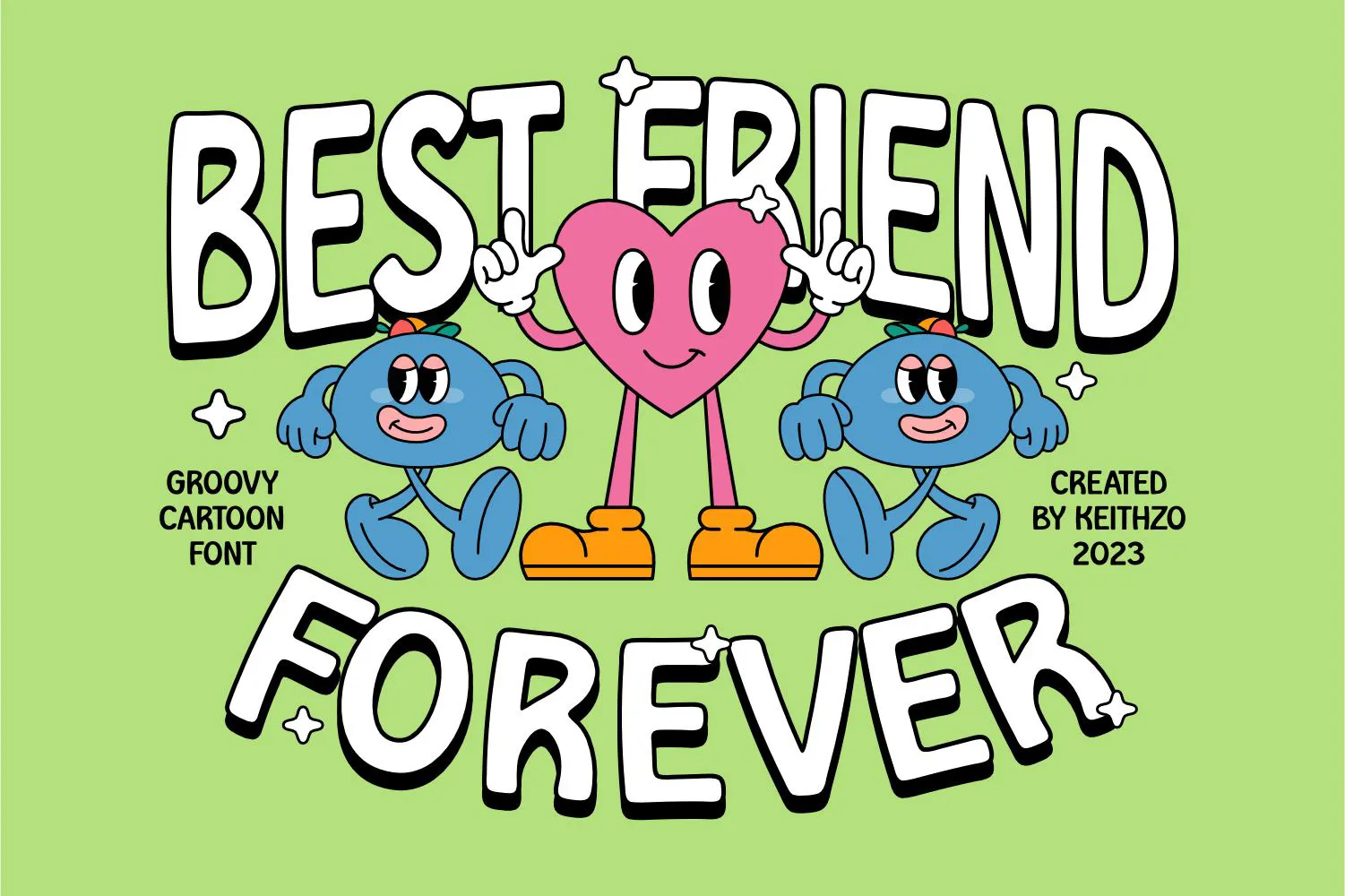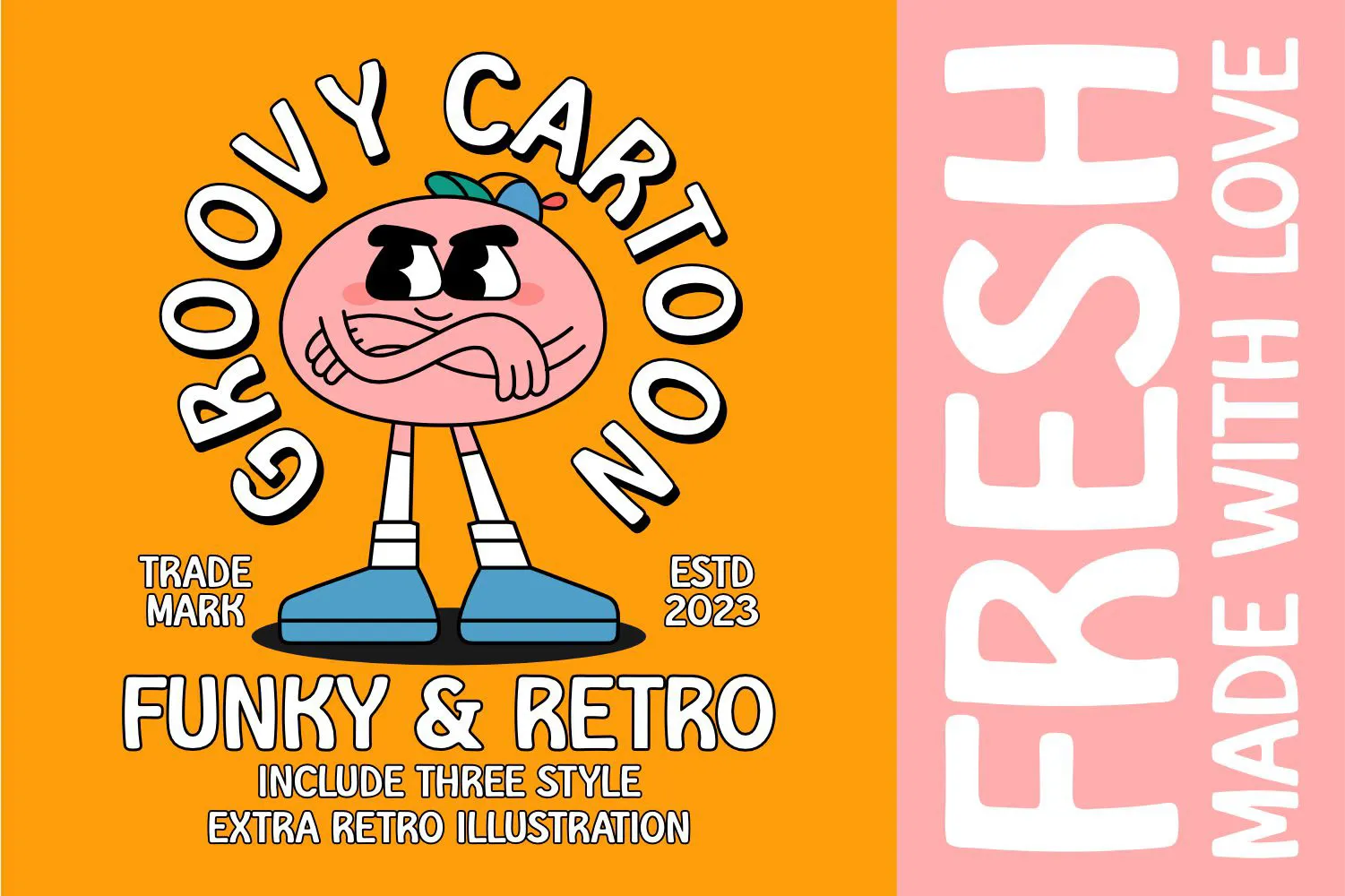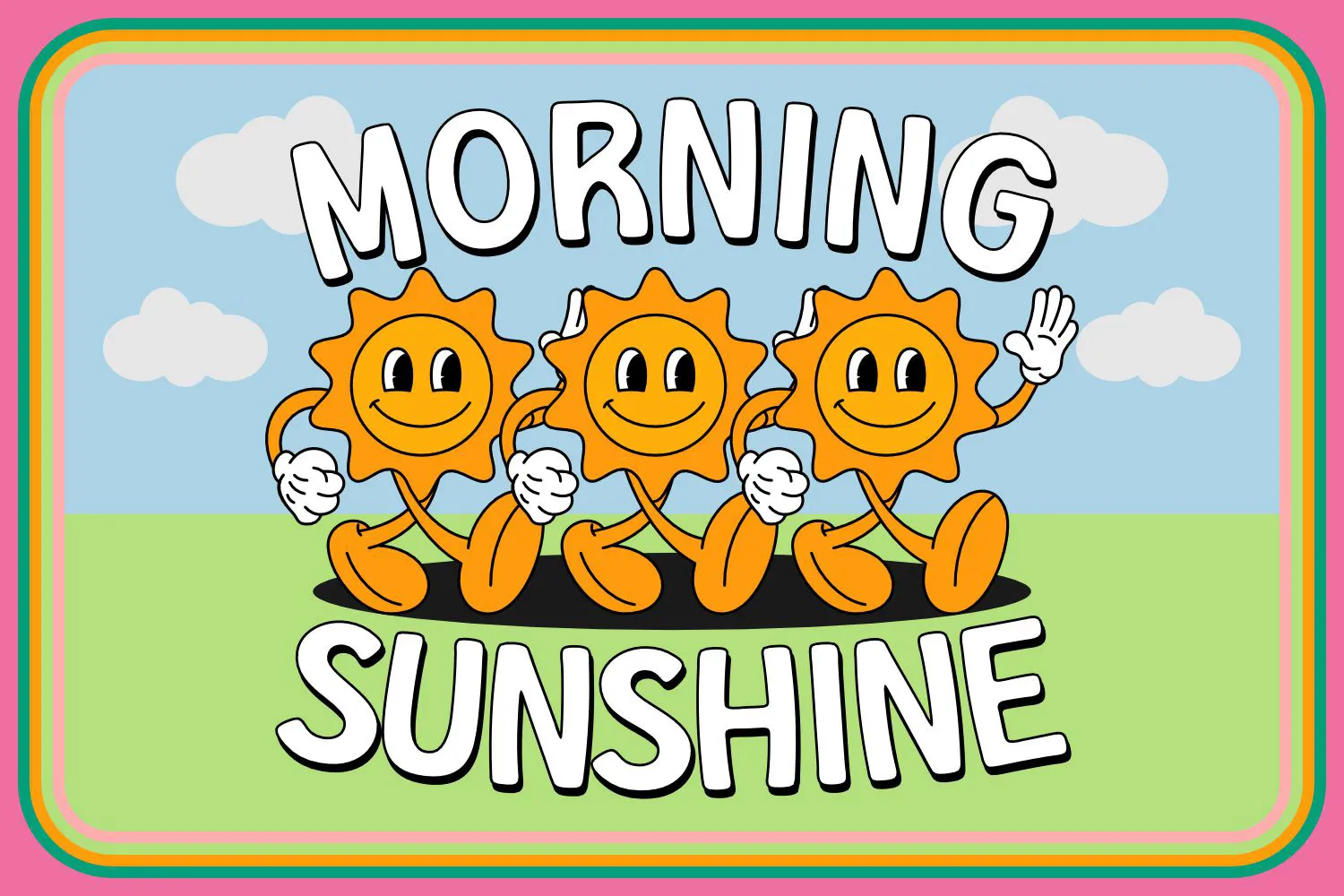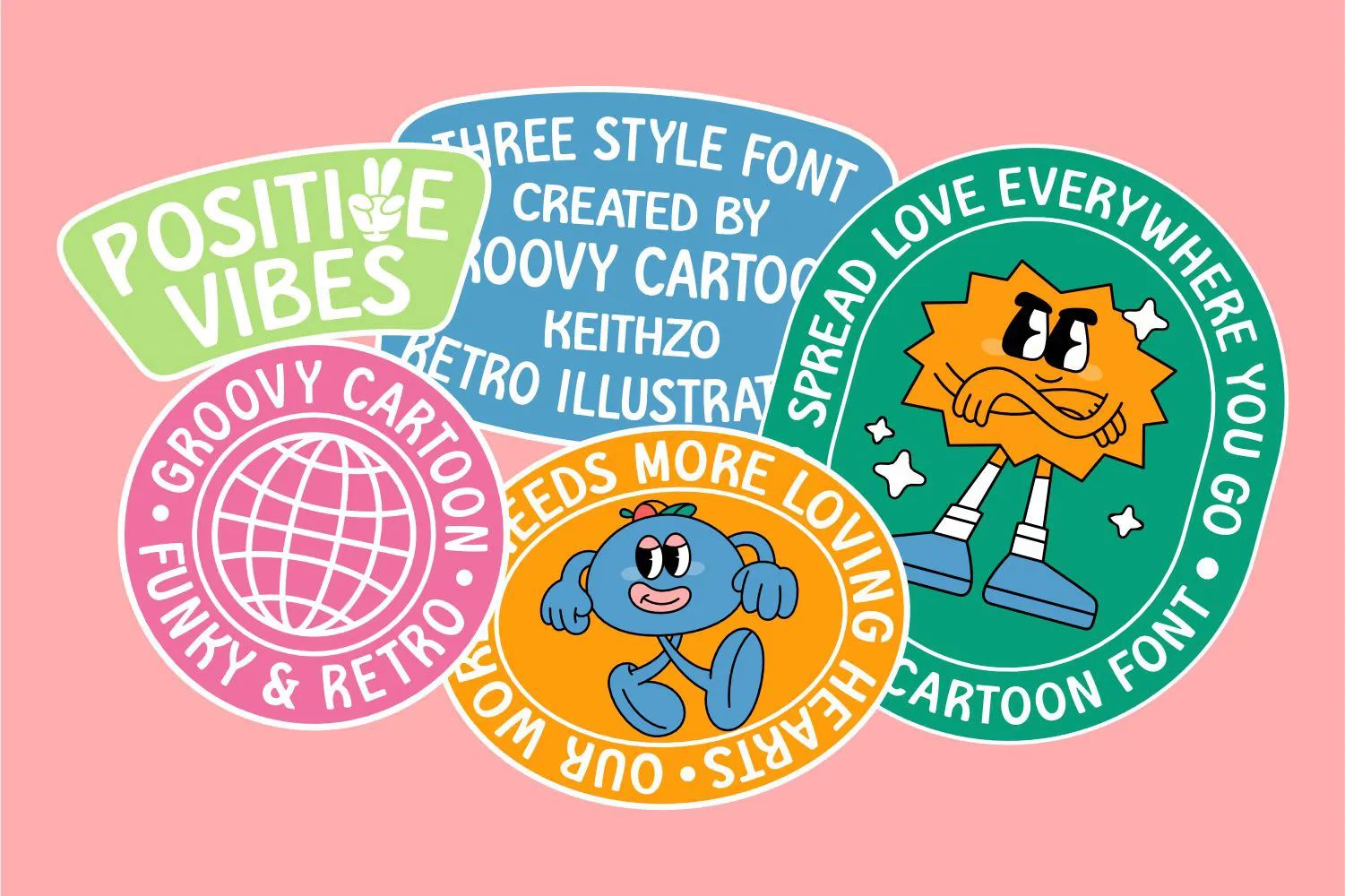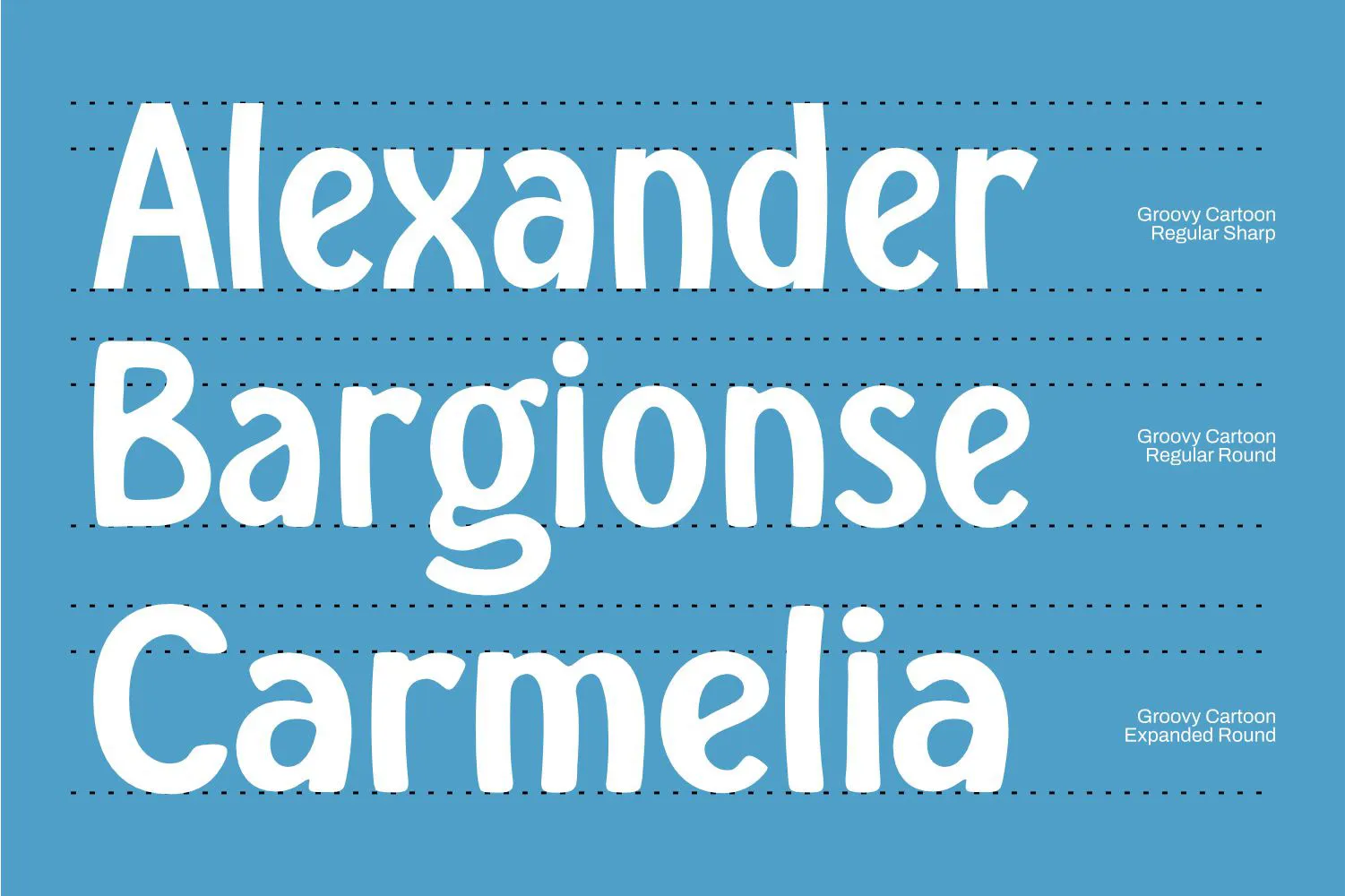
Introducing Groovy Cartoon Display Font – the perfect balance between playful and professional. This font is a versatile choice for a wide range of design projects. With its unique blend of fun and sophistication, it is sure to add a touch of creativity to your creative ideas.